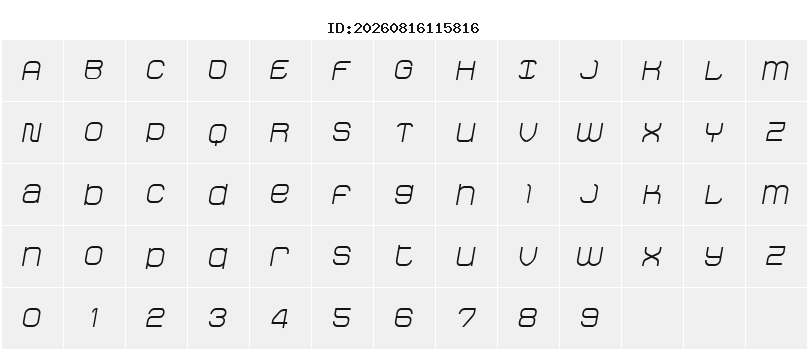
StakRegular Oblique Preview
• Font Name: StakRegular Oblique
• Font ID: Macromedia Fontographer 4.1.5 StakRegular Oblique
• Full Font Name: StakRegular Oblique
• PostScript Name: StakRegularOblique
About StakRegular Oblique.ttf
StakRegular Oblique.ttf is a modern, elegant sans-serif font designed for ultimate readability and visual harmony. Perfect for branding, headlines, web design, and print materials.